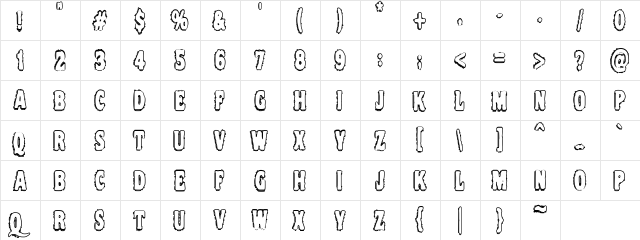
VTC NightOfTheDrippyDeadOuttie Outline
| Designer | WolfBainX |
Design Context for VTC NightOfTheDrippyDeadOuttie Typeface
VTC NightOfTheDrippyDeadOuttie brings ornamental detail and strong personality to headlines and identities, where visual impact matters more than quiet functionality.
Font Pairing: Pair with a clean neutral sans-serif for body copy to let VTC NightOfTheDrippyDeadOuttie's character lead without overwhelming the composition.
Pro Tip: Treat VTC NightOfTheDrippyDeadOuttie as the centrepiece of your typographic hierarchy. One strong heading set in a decorative face can carry an entire layout.